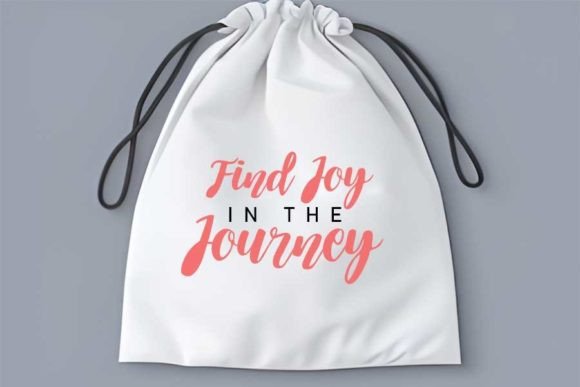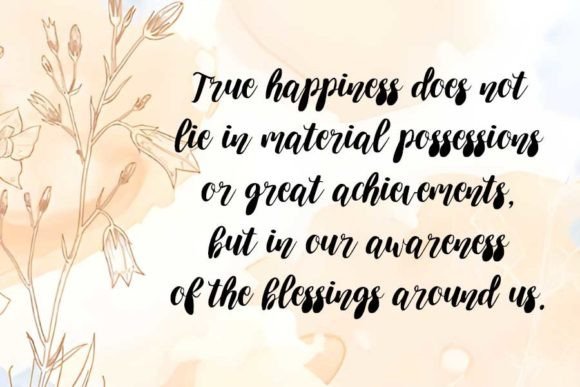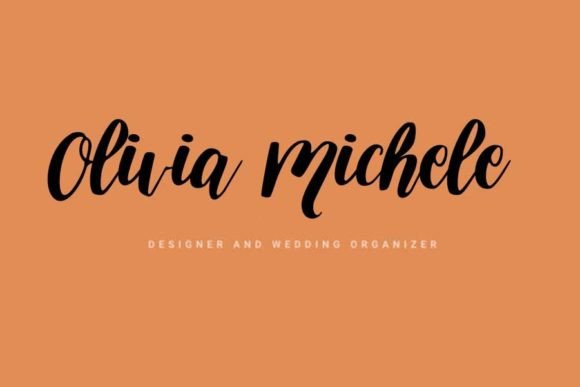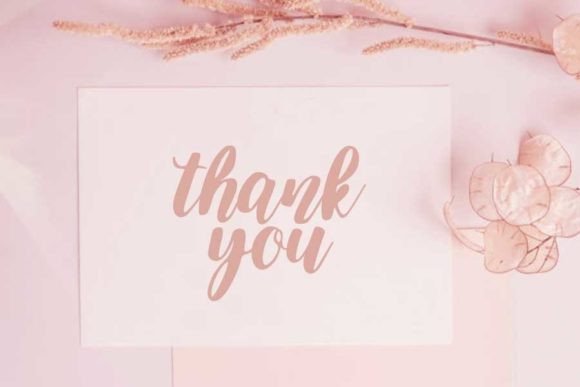
Introducing Frontliner Font: Elevate Your Designs with Elegance
Are you on the hunt for a font that exudes luxury and sophistication? Look no further than Frontliner Font, a stunning handwritten font that is sure to take your designs to the next level. With its elegant touch and timeless style, Frontliner is the perfect choice for designers and crafters looking to add a touch of class to their projects.
The Characteristics of Frontliner Font
Frontliner Font is a luxury handwritten font that boasts an incredibly distinct and timeless style. Its elegant touch is perfect for creating spectacular designs that are sure to leave a lasting impression. The font’s unique characteristics include:
- Elegant and Refined: Frontliner Font features a refined and elegant design that is perfect for luxury brands, high-end products, and sophisticated designs.
- Handwritten with Flair: The font’s handwritten style gives it a personal and human touch, making it perfect for designs that require a more personal and approachable feel.
- Timeless Style: Frontliner Font’s timeless style ensures that your designs will never go out of fashion, making it a great investment for designers and crafters.
Frontliner Font is versatile and can be used for a wide range of projects, including:
- Branding and Logo Design: The font’s elegant and refined design makes it perfect for luxury brands and high-end products.
- Wedding and Event Design: Frontliner Font’s romantic and sophisticated style makes it ideal for wedding invitations, event branding, and more.
- Packaging and Product Design: The font’s unique style and elegance make it perfect for packaging and product design, adding a touch of luxury to any product.
- Stationery and Print Design: Frontliner Font is also great for stationery, business cards, and other print designs, adding a touch of sophistication and elegance.
Why Choose Frontliner Font?
With so many fonts available, why choose Frontliner Font? Here are just a few reasons:
- Unique and Distinctive: Frontliner Font’s unique style and elegance make it stand out from other fonts, ensuring your designs will be noticed.
- High-Quality Design: The font is designed with high-quality and precision, ensuring it will look great in any design.
- Easily Readable: Despite its elegant and refined design, Frontliner Font is easily readable, making it perfect for body text and headlines.
How to Use Frontliner Font
Using Frontliner Font is easy! Here are a few tips to get you started:
- Pair it with Other Fonts: Frontliner Font pairs well with other fonts, so don’t be afraid to experiment and find the perfect combination for your design.
- Experiment with Colors: The font’s elegant design looks great in a variety of colors, so try experimenting with different colors to find the perfect fit for your design.
- Pay Attention to Kerning: As with any font, pay attention to kerning to ensure your text looks professional and polished.
| Font Name | Frontliner Font |
| Author | Snowman Studio |
In conclusion, Frontliner Font is a luxury handwritten font that is sure to elevate your designs with its elegant touch and timeless style. With its unique characteristics, versatility, and high-quality design, it’s the perfect choice for designers and crafters looking to add a touch of luxury to their projects. So why wait? Fall in love with Frontliner Font and start creating spectacular designs today!